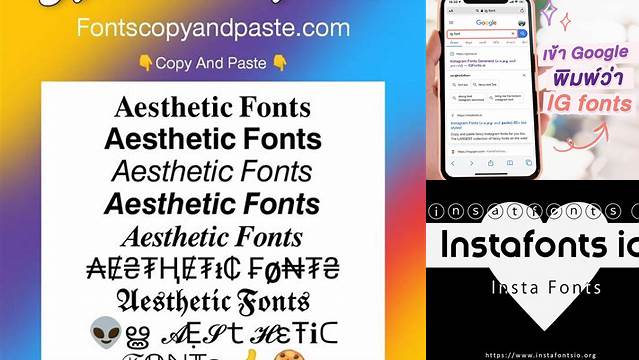
Hey guys! Ever wanted to spice up your Instagram game? You know, make your posts and stories really pop? Well, you're in the right place! We're diving into the world of font generators that let you copy and paste awesome fonts directly into your IG bio, captions, and more. No more boring text – let’s get creative!
1. What is a Font Generator and How Does it Work?
So, what exactly is a font generator? Basically, it's a tool that allows you to create text in various cool and unique styles that aren't typically available on platforms like Instagram. These generators use special Unicode characters to mimic different fonts.
How do they work? You simply type your text into the generator, and it instantly provides you with a selection of stylized fonts. You can then copy and paste these fonts directly into your Instagram bio, captions, comments, or anywhere else you want to add some flair. It's super simple and requires no technical skills at all. Think of it like a magic wand for your text!
These generators are incredibly useful because Instagram (and many other social media platforms) have a limited selection of fonts. By using a font generator, you can stand out from the crowd and express your personality more effectively. Plus, it's a fun way to experiment with different looks and see what resonates with your audience. Whether you're running a business or just want to make your personal profile more engaging, a font generator is a valuable tool. They also come in handy for creating eye-catching headings, subheadings, or even just to add a touch of creativity to your everyday posts. Give it a try – you might be surprised at how much of a difference a unique font can make!
2. Why Use a Font Generator for Instagram?
Alright, let's talk about why you should even bother using a font generator for Instagram. First and foremost, it’s all about standing out! Instagram is a visual platform, and everyone is vying for attention. Using unique fonts can help your content grab the eye and make a memorable impression. Imagine scrolling through your feed and suddenly seeing a bio or caption with a font that’s totally different – it’s going to catch your attention, right?
Beyond just aesthetics, using a font generator can also help you express your personal brand. Whether you’re a business owner, influencer, or just someone who loves sharing their life, your Instagram profile is an extension of your personality. By choosing fonts that reflect your style and vibe, you can create a cohesive and engaging online presence. For example, if you run a playful, quirky brand, you might opt for a bubbly or handwritten font. On the other hand, if you're aiming for a sophisticated, professional look, a sleek and modern font might be more appropriate.
Another great reason to use a font generator is to add emphasis to important information. You can use different fonts to highlight key words, phrases, or calls to action in your captions or bio. This can help draw attention to the most important parts of your message and encourage your audience to take action. For instance, if you're promoting a sale, you could use a bold, eye-catching font to highlight the discount. Or, if you're running a contest, you could use a unique font to make the rules or entry instructions stand out. Overall, a font generator is a simple yet powerful tool that can help you elevate your Instagram game and make a lasting impression.
3. Top Font Generator Websites for Copy and Paste
Okay, so you're sold on the idea of using a font generator – great! Now, let's dive into some of the top websites where you can find these awesome tools. One popular option is LingoJam. It’s super user-friendly and offers a wide variety of fonts to choose from. All you have to do is type your text into the input box, and LingoJam instantly generates a bunch of different font styles for you to copy and paste.
Another fantastic choice is Cool Font. This website is known for its simplicity and efficiency. It provides a clean interface and a diverse selection of fonts, ranging from elegant and sophisticated to fun and playful. Cool Font also offers some unique features, such as the ability to create custom symbols and emojis, which can further enhance your Instagram content. Plus, it's completely free to use, so you don't have to worry about any hidden fees or subscriptions.
IGFonts.io is another top-notch font generator that's specifically designed for Instagram. It offers a wide range of stylish fonts that are perfect for bios, captions, and stories. The interface is intuitive and easy to navigate, making it a great option for beginners. IGFonts.io also provides helpful tips and tutorials on how to use different fonts effectively on Instagram. Whether you're looking to add a touch of elegance, creativity, or playfulness to your profile, IGFonts.io has got you covered. These websites make it incredibly easy to find and use a font generator. Just type, copy, and paste – it’s that simple!
4. Step-by-Step Guide to Using a Font Generator
Alright, let's break down how to use a font generator step-by-step. First, head over to one of the font generator websites we mentioned earlier, like LingoJam, Cool Font, or IGFonts.io. Once you're on the site, you'll usually see a text box where you can type your desired text. Go ahead and type in whatever you want to transform into a cool font – it could be your Instagram bio, a caption for your next post, or even a comment you want to leave on someone else's photo.
After you've typed in your text, the font generator will automatically generate a variety of different font styles below the input box. Take a look through the options and choose the font that you like best. Once you've found the perfect font, simply click on it to select it. Most font generators will have a